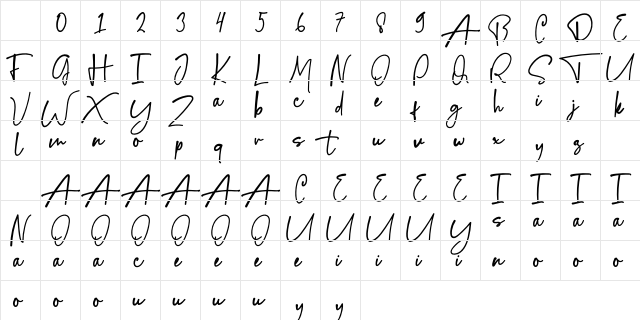
Complete Bigfish Regular glyph index. Displaying only characters natively supported by Bigfish Regular font.
Bigfish is a composed and adaptable typeface that performs quietly and consistently across a wide range of design contexts.